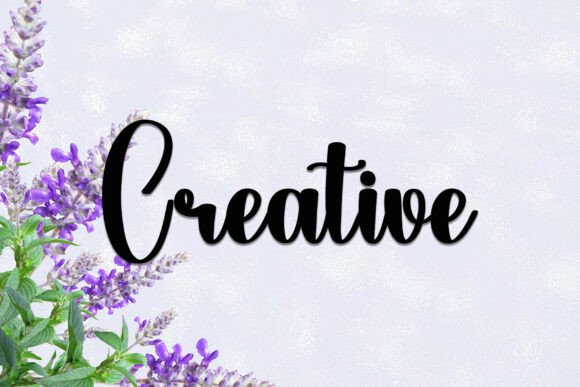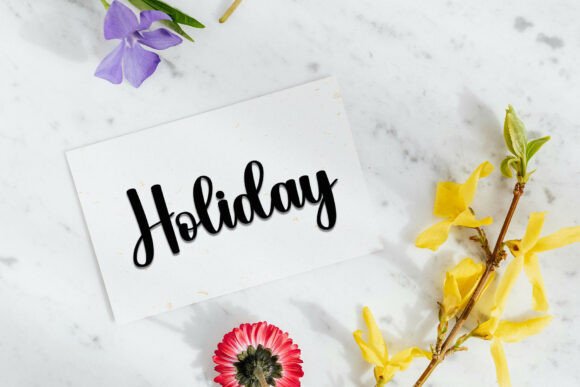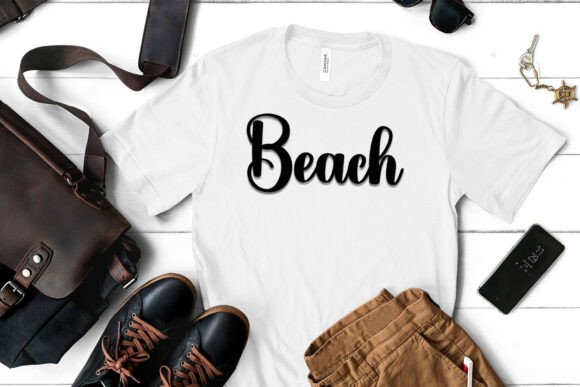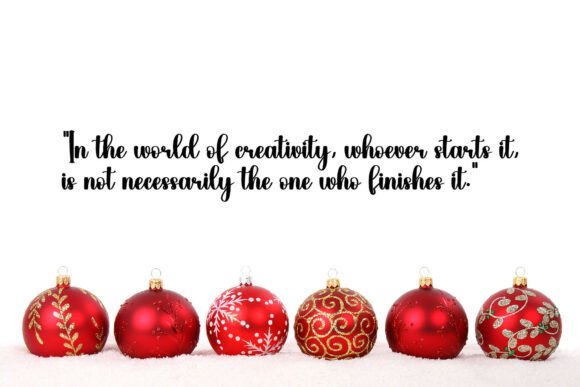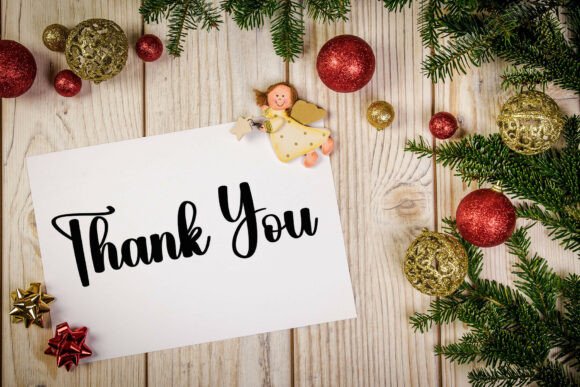
The Perfect Font for Your Little Bundle of Joy
You know that feeling when you’re working on a design project and you just can’t seem to find the right font to tie everything together? It’s like the missing piece of a puzzle, and once you find it, everything falls into place.
That’s exactly what happened to many designers when they stumbled upon the Baby Shower Font. This trendy handwritten font exudes a contemporary atmosphere and impeccable form, making it the perfect addition to any design project. With its timeless classic calligraphy inspiration, it’s sure to add elegance and class to your work. Whether you’re designing a baby shower invitation, a nursery sign, or a logo for a children’s brand, this font is sure to make a statement.
Baby Shower Font Key Features
- Font Family: A unique, cursive script font designed specifically for baby shower invitations and decorations.
- Font Size: The font is designed to be highly legible at various sizes, from 12pt to 48pt, making it suitable for both small and large text applications.
- Resolution: The font is optimized for high-resolution displays, ensuring clear and crisp text even at large sizes or when zoomed in.
- Unique Characteristics: Features a delicate, hand-painted feel with subtle flourishes and swashes, perfect for adding a touch of whimsy and elegance to baby shower designs.
Baby Shower Font Review
Overall, I was excited to dive into Baby Shower Font, hoping to find a unique and eye-catching typeface for baby-themed projects. Here’s what I found:
- The font does indeed evoke a playful and whimsical feel, perfect for baby shower invitations, decorations, and other related materials.
- The variety of styles and sizes available make it easy to customize and match the font to different design elements.
- The font is relatively easy to read, even at smaller sizes, making it a good choice for text-heavy projects.
- The font may be a bit too cutesy or over-the-top for some designs, especially those aiming for a more minimalist or sophisticated look.
- The font’s uniqueness can also be a drawback, as it may not be immediately recognizable or easily paired with other fonts.
- Some of the styles and sizes can feel a bit too similar, making it difficult to choose the perfect fit for a particular project.
Overall, Baby Shower Font is a solid choice for those looking to add a playful touch to their baby-themed designs. While it may not be the best fit for every project, it’s a great option when used in moderation and paired with other complementary fonts.
The Baby Shower Font is perfect for creating invitations, banners, and other decorations for baby showers. You can also use it to create custom signs, party favors, and gift tags.